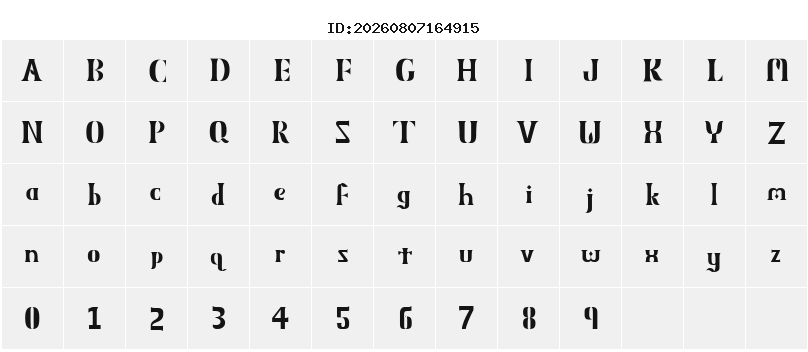
Obelisk MXVV 1.1.ttf is a modern, elegant sans-serif font designed for ultimate readability and visual harmony. Perfect for branding, headlines, web design, and print materials.